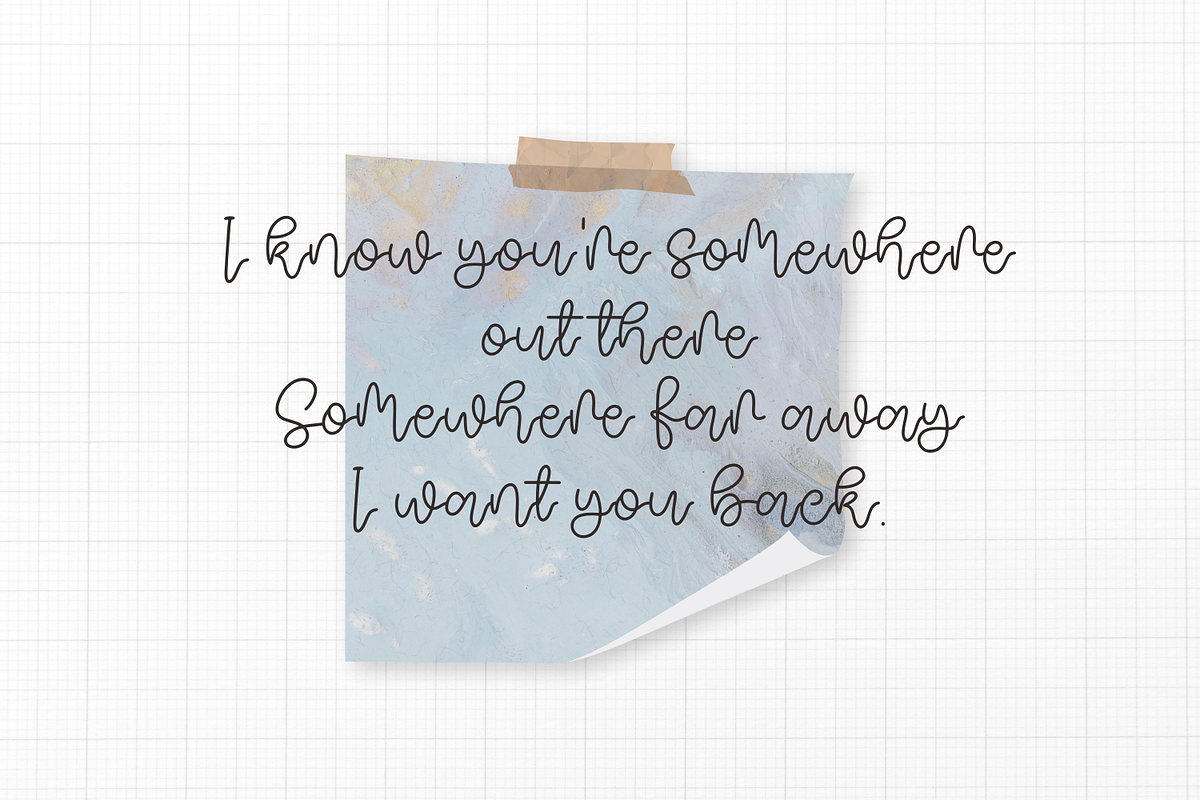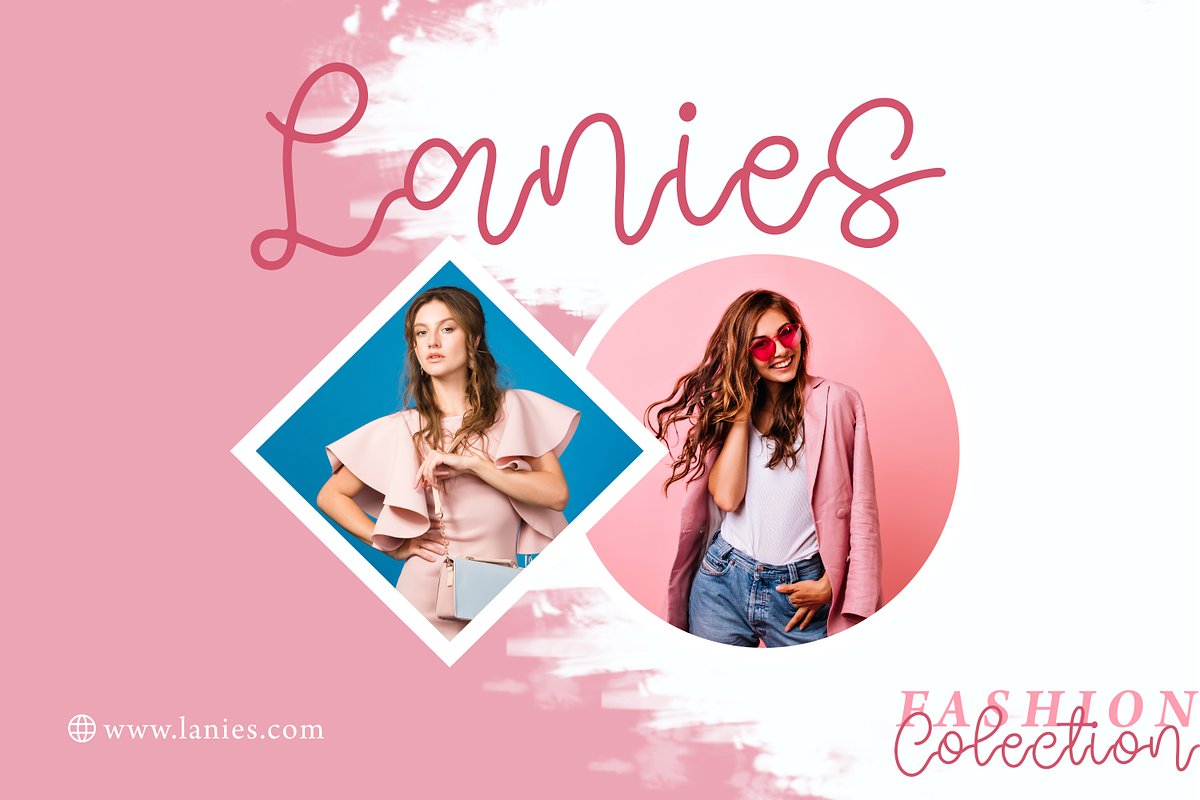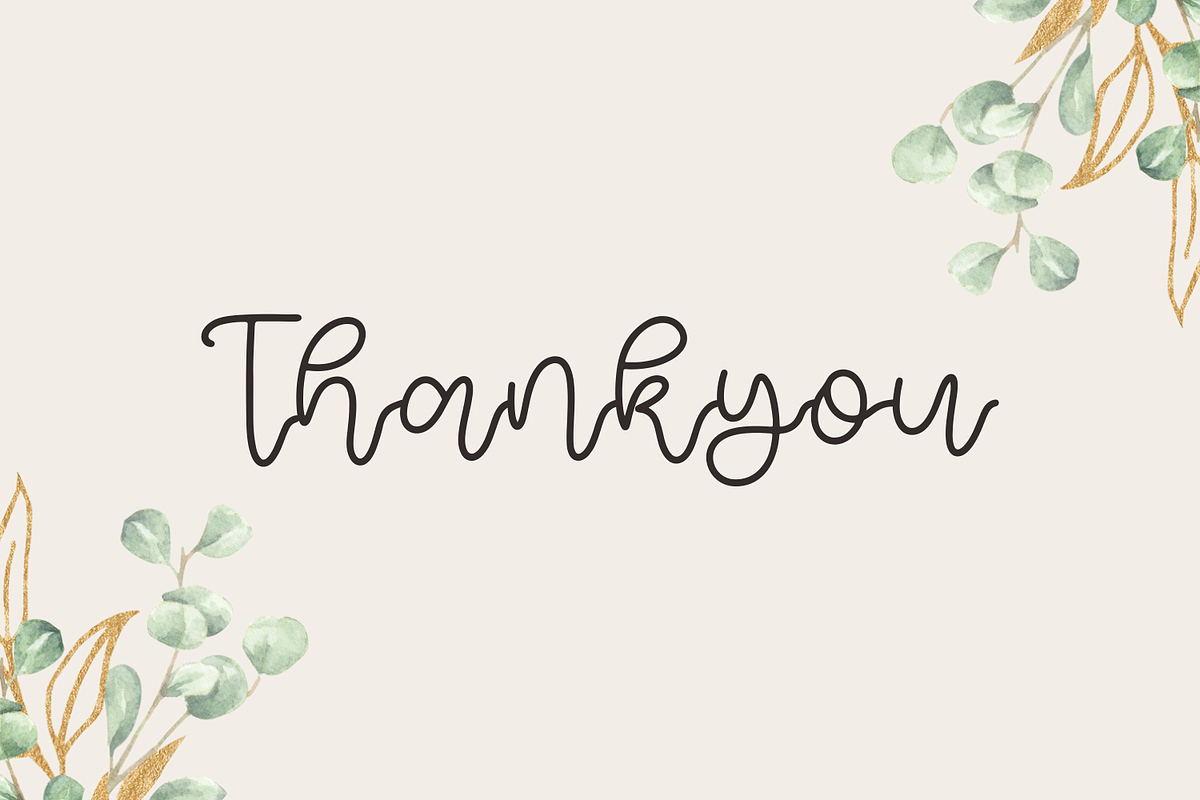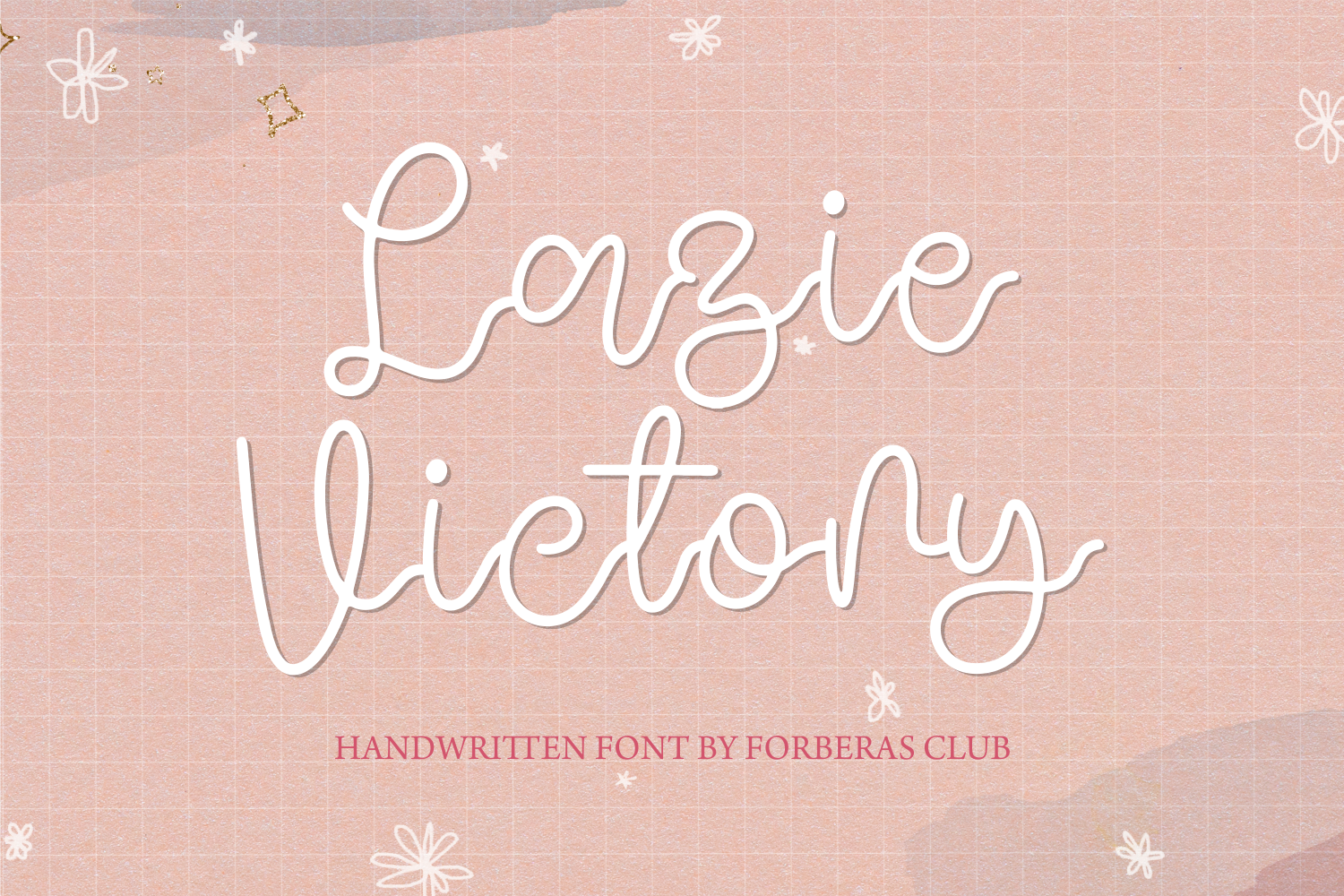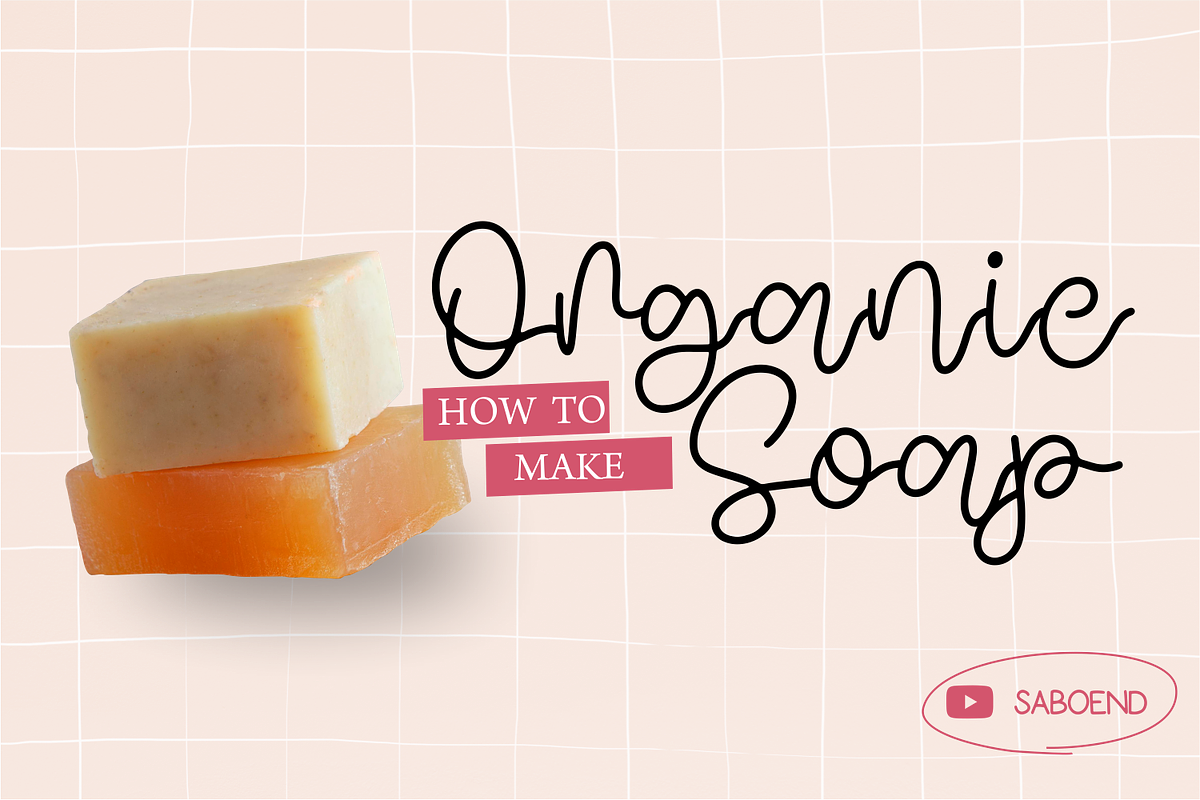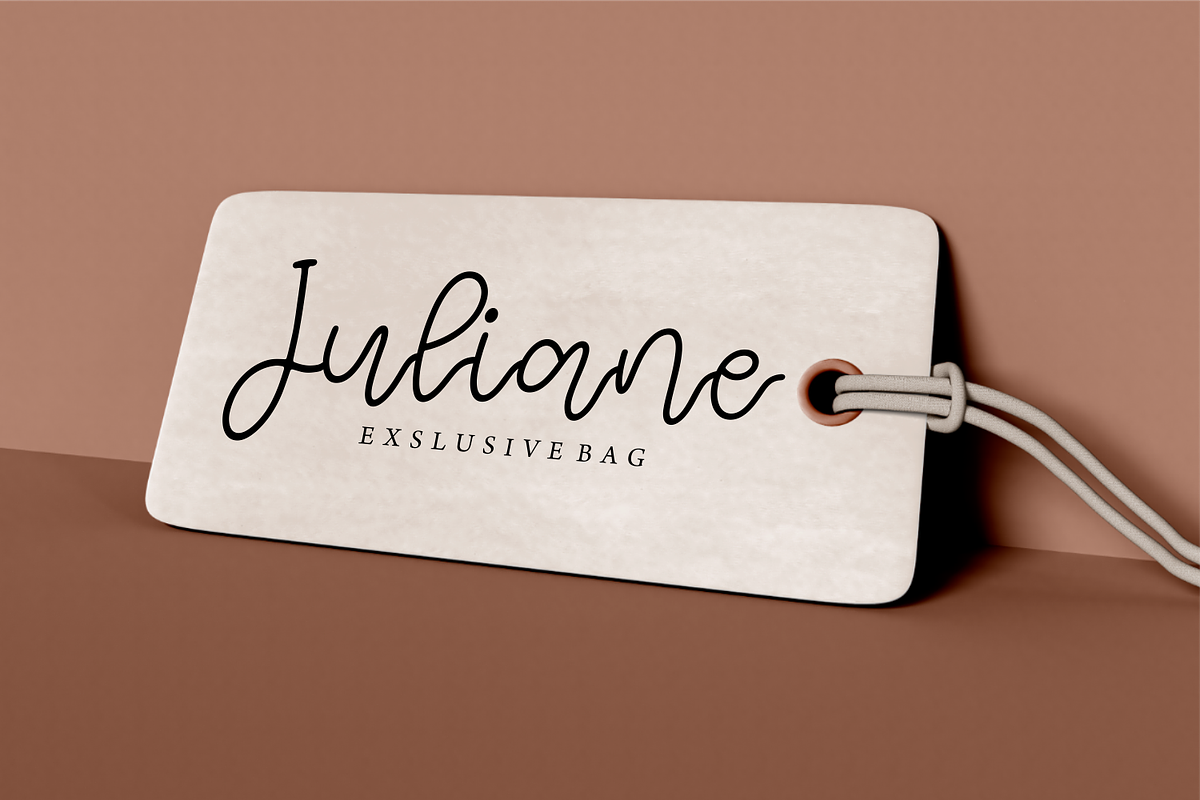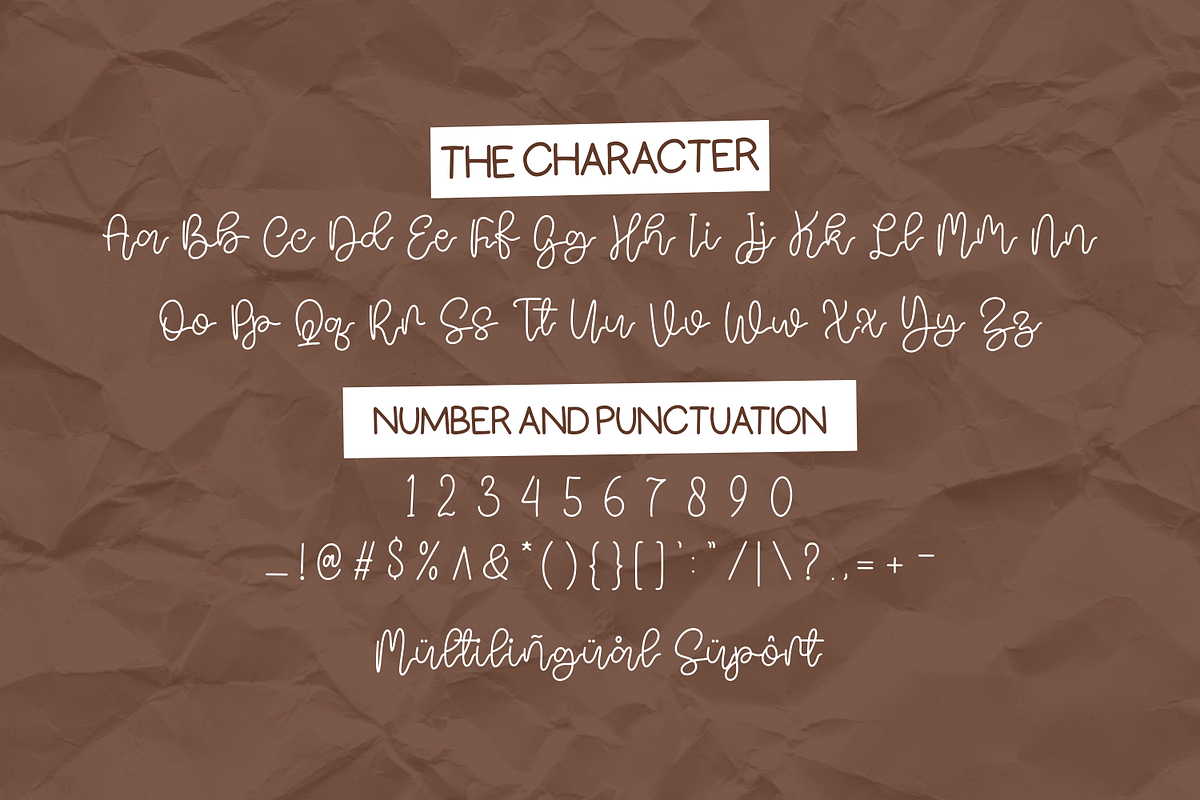
Lazie Victory | Handwritten Font
Introducing Lazie Victory by Forberas
Modern and beautiful handwritten script font! Great for wedding greeting cards, logos, branding materials, Invitation, business cards, quotes, posters, Cricut artwork and more!